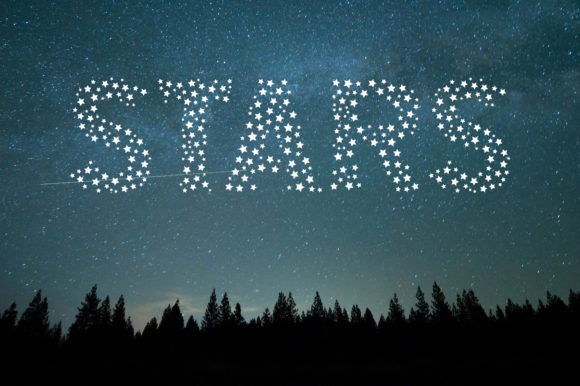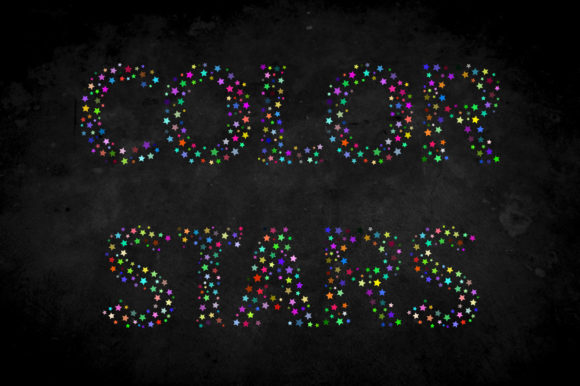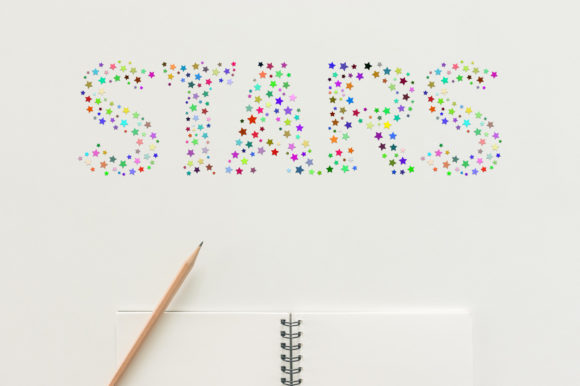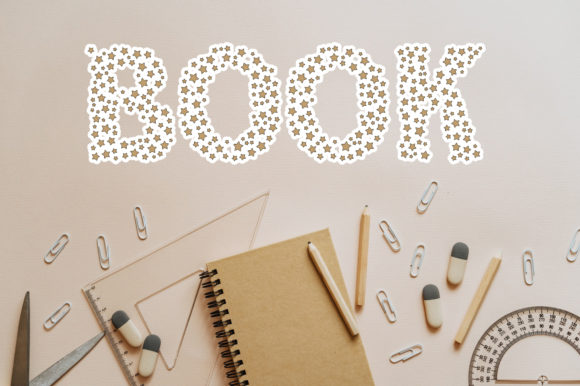
Color Stars Font
About the Color Stars Font
Explore the possibilities with Color Stars Font, a font that offers both beauty and functionality. Color Stars is an incredibly original decorative font, featuring star ornaments. Incredibly dreamy and romantic, this font fits a wide pool of designs, elevating them to the highest levels. Add this font to your favorite creative ideas and notice how it makes them come alive!
Color Stars’ decorative style makes it ideal for headlines, short titles, logos, and packaging where its whimsical charm can shine. It’s also effective in posters or social media graphics requiring a touch of playful sophistication. However, its ornate nature makes it unsuitable for body text or UI elements, where legibility is paramount. Extended use would strain readability.
The font’s personality is undeniably playful and romantic, yet retains a touch of elegance. This makes it perfect for brands targeting a younger demographic or those wishing to project a fun, yet refined image.
Pairing Color Stars with a clean sans-serif like Lato or Open Sans for body text provides excellent contrast and balances its ornate character. For a more sophisticated pairing, consider a classic serif such as Garamond or a geometric sans-serif like Futura.
Color Stars Font Usage Examples
Color Stars Font Example